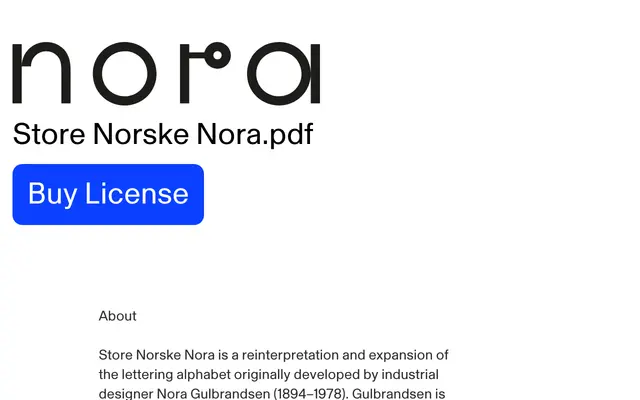
Store Norske Nora
Store Norske Skriftkompani · Arve Båtevik
A variable geometric display typeface by Arve Båtevik, reviving and expanding the modular lettering alphabet that Norwegian industrial designer Nora Gulbrandsen devised for Porsgrunds Porselænsfabrik in the 1930s.
Constructed from repeating modular components shaped to suggest plates and porcelain objects, the letterforms shift horizontally across a variable axis from widely spaced to near-conventional condensed configurations. The design takes Gulbrandsen's concept of 'formlek', playful experimentation with form, as its guiding principle rather than strict functional geometry. The character set covers Western European and Nordic languages including Norwegian, Danish and Swedish, with OpenType stylistic sets for alternate I, J, R and Ø forms.
Constructed from repeating geometric modules that evoke porcelain forms, with variable-font spacing from wide to condensed; the design is explicitly display-oriented with a compact Latin character set and no text-setting intent.